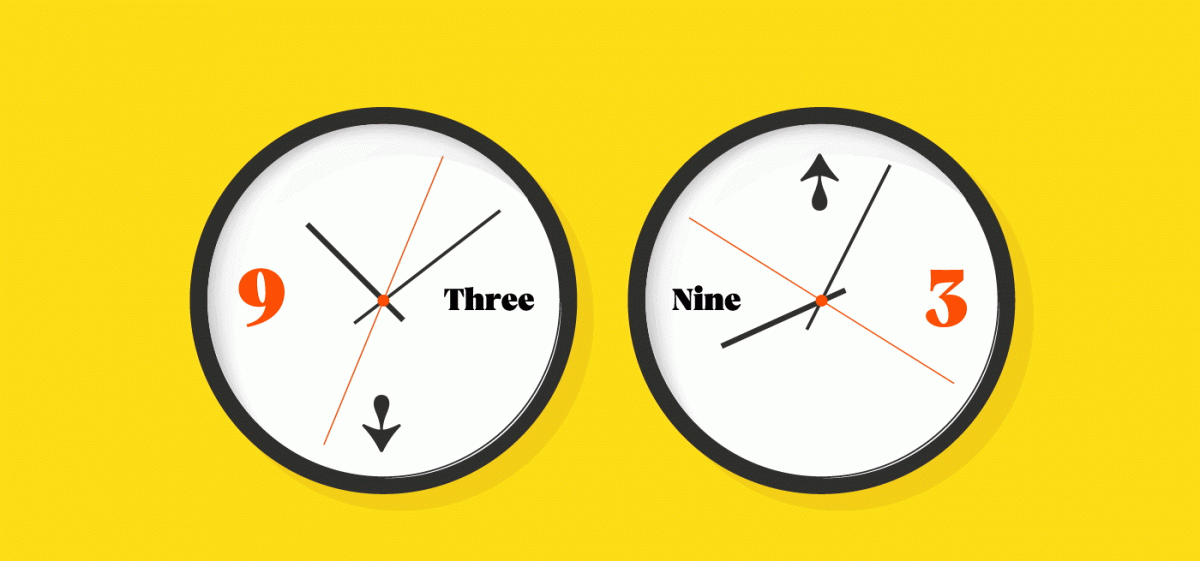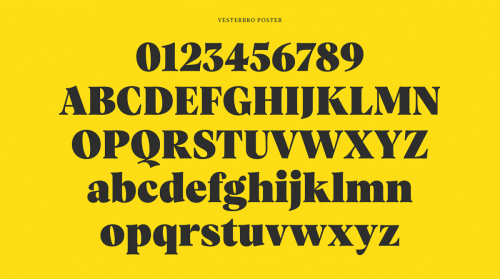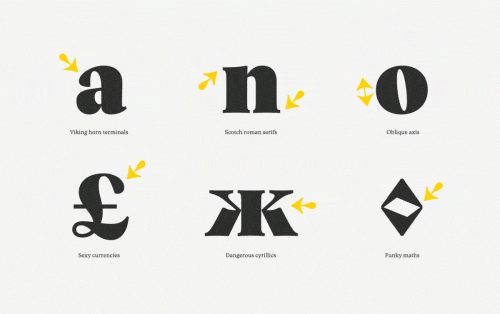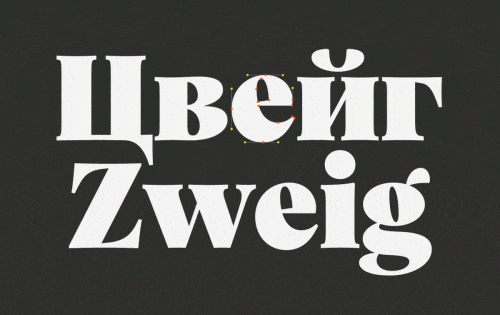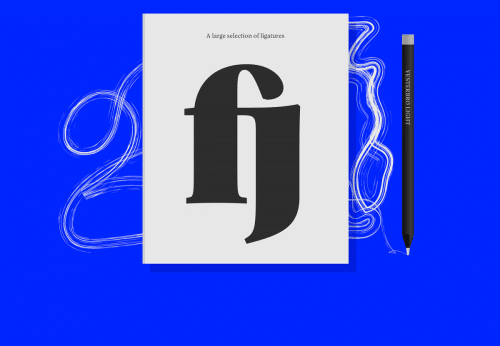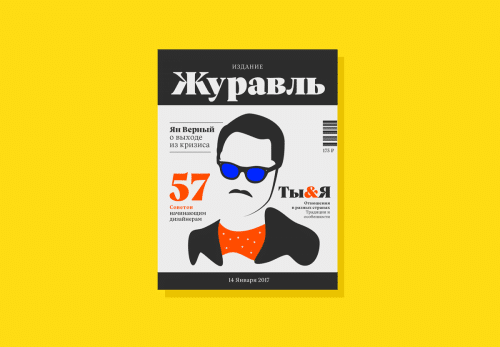
Vesterbro is a versatile typeface built by Black[Foundry] for global communication. Its six weights may be used for a wide range of design projects, including branding and identity design, editorial design, and even advertising or packaging design.
- Designer: Jeremie Hornus, Ilya Naumoff, Alisa Nowak